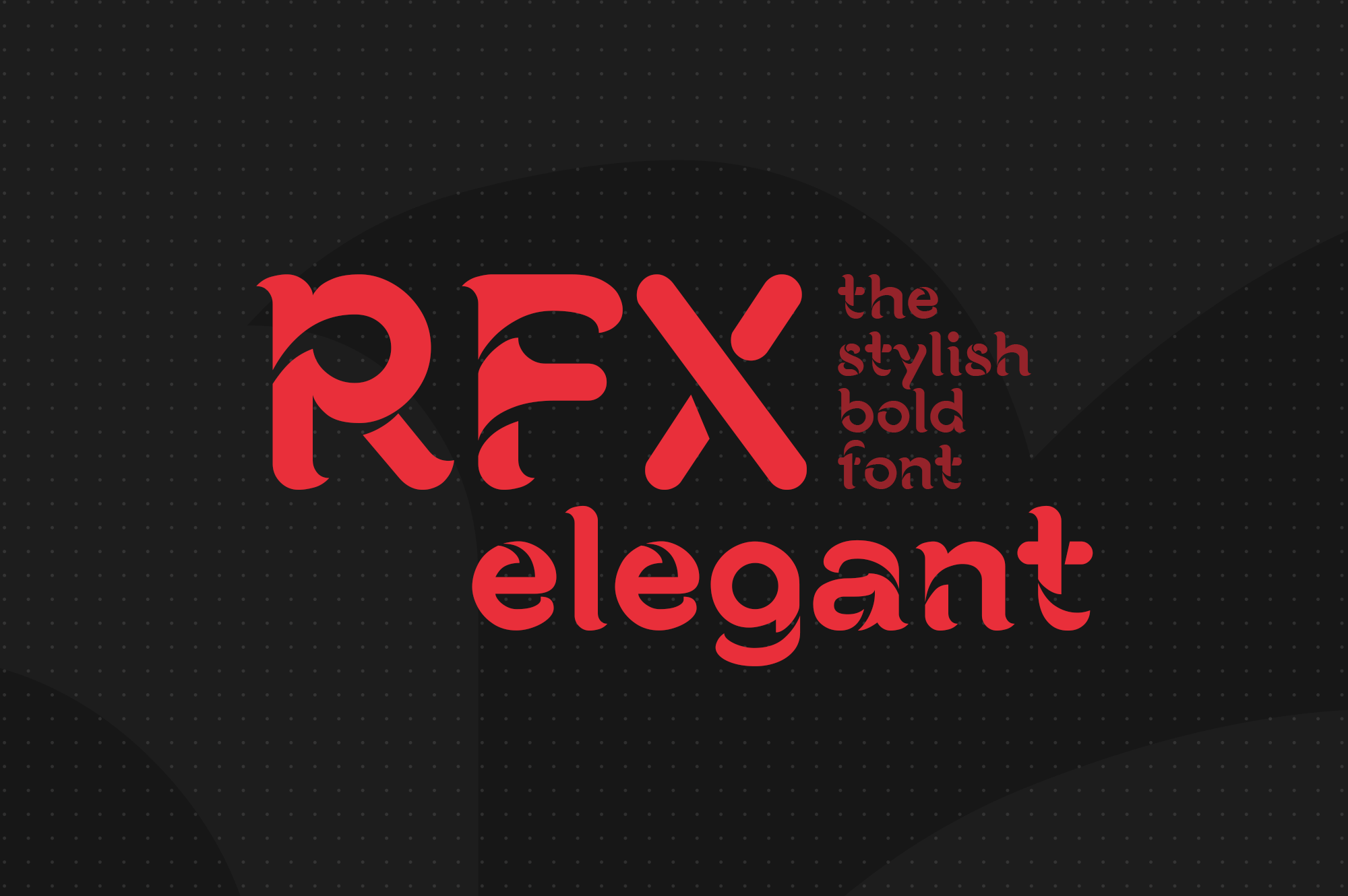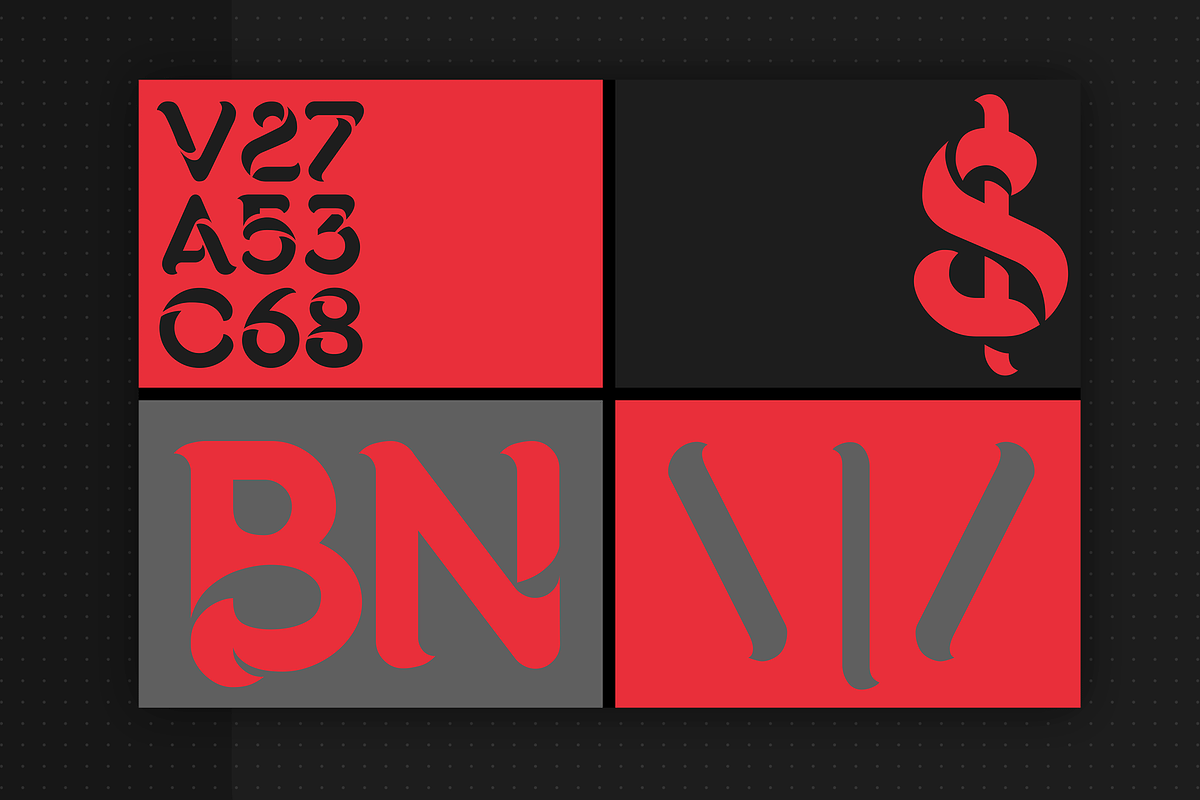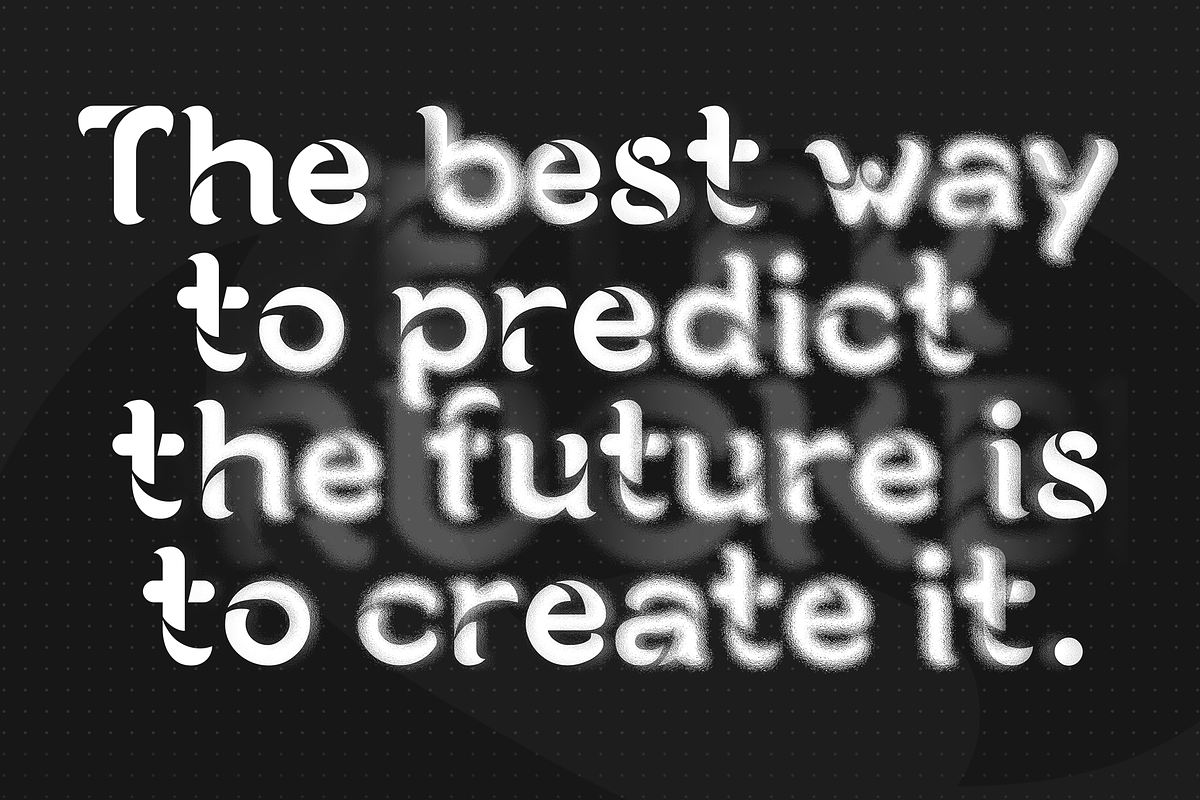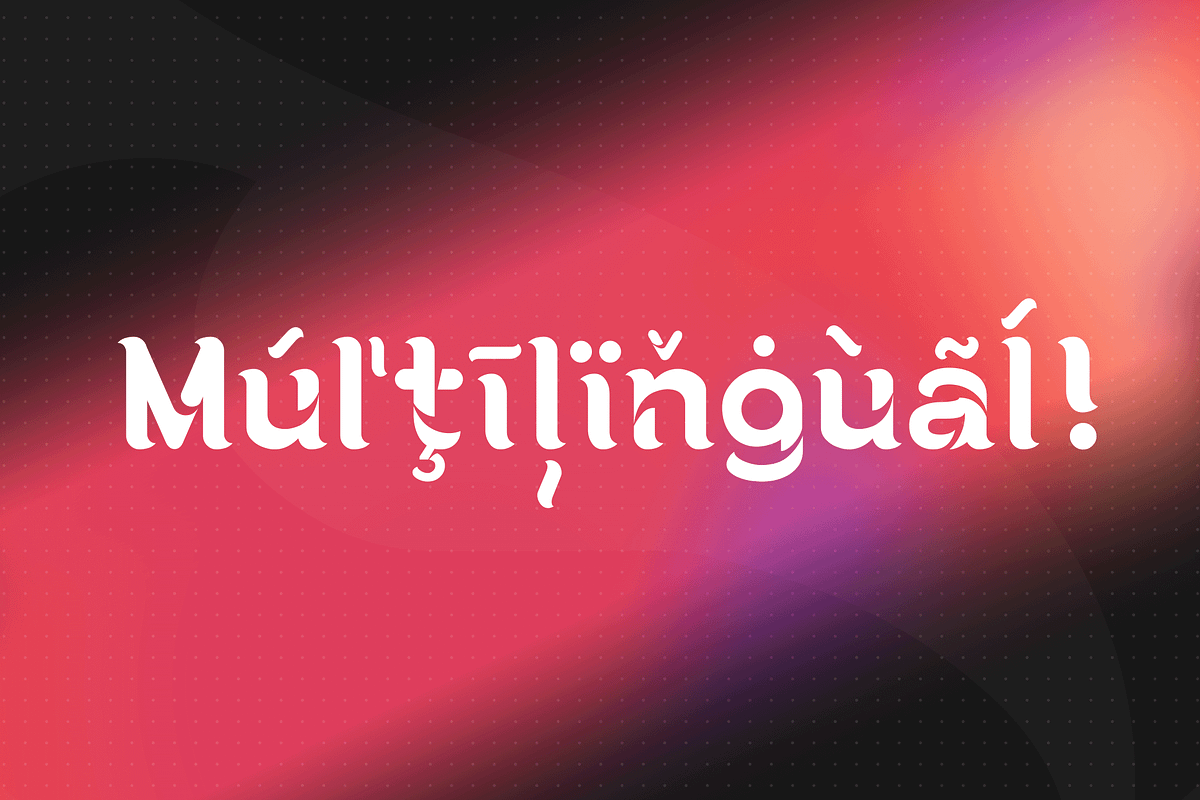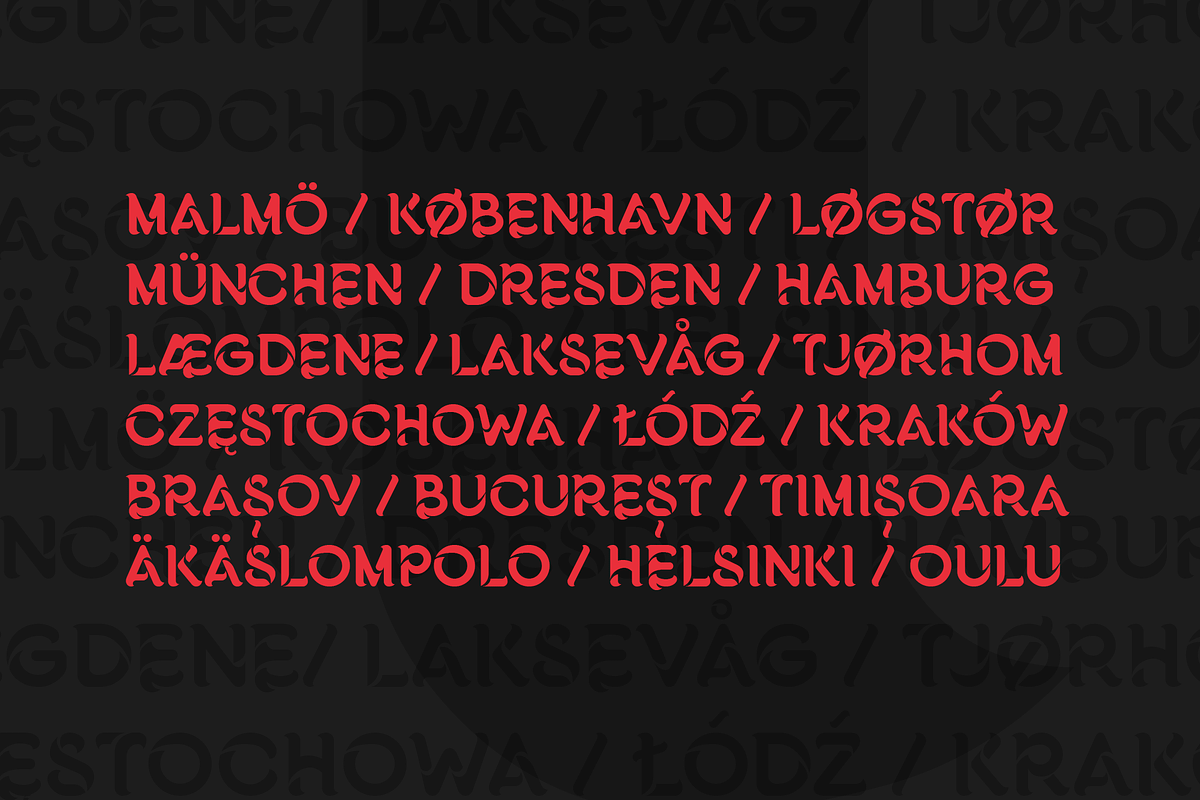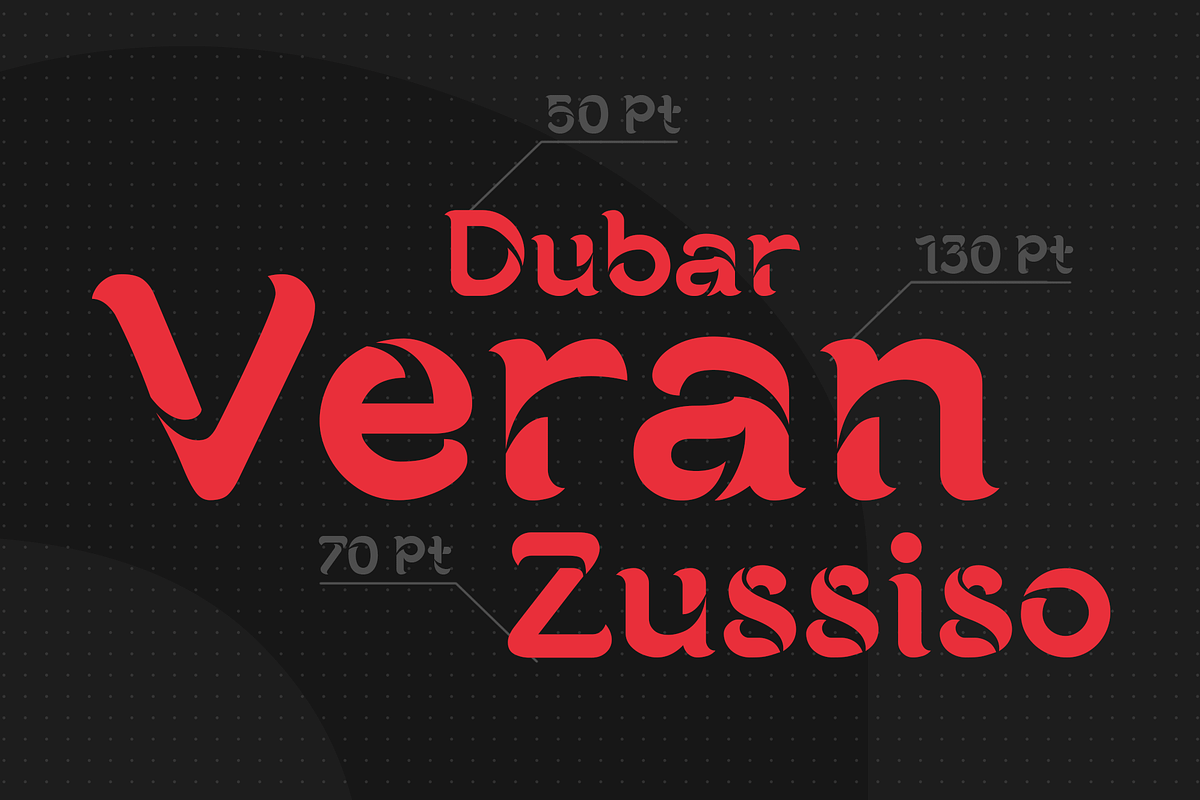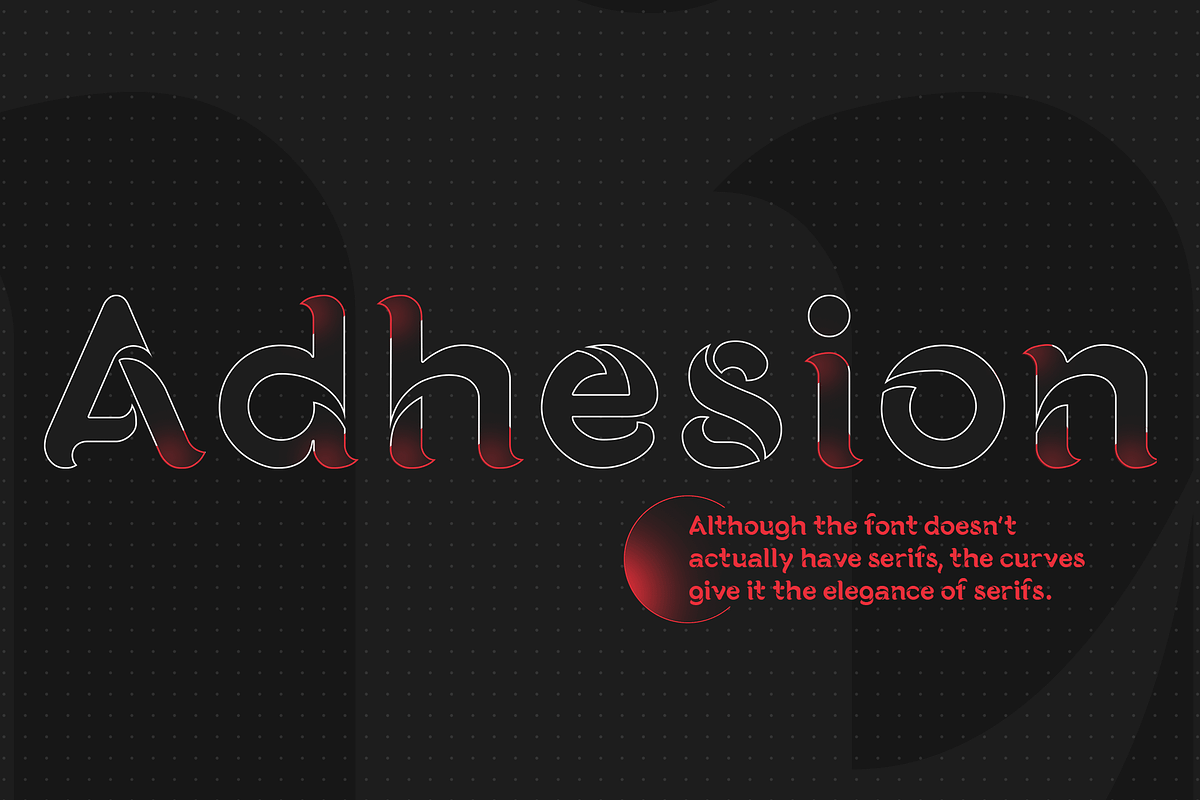
RFX elegant Font
RFX elegant is an elegant bold typeface that looks modern and defies previous conventions. Is it a serif typeface? Yes and no. Although it doesn't actually have serifs, the curves give it the elegance of serifs. The curves make it look pleasing and friendly, but the breaks still give it a strong character. It can be used mixed and versal. It is ideal for occasions where friendliness and beauty meet elegance and character. It also offers language support for the entire European region, as well as for North & South America and Oceania.